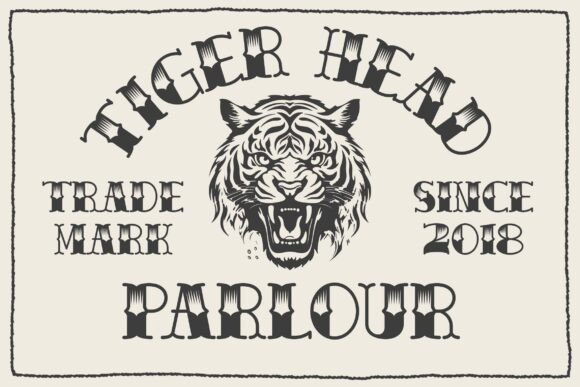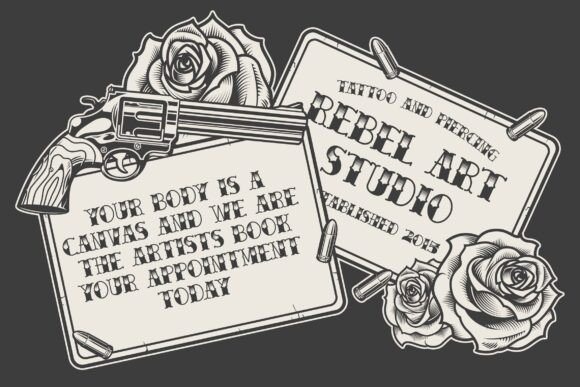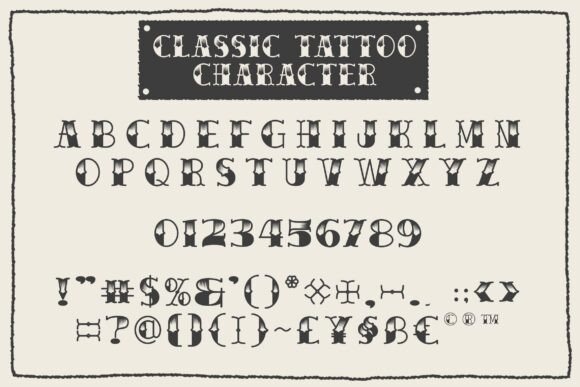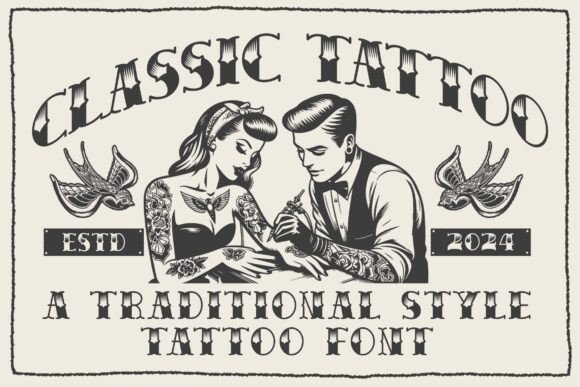
Classic Tattoo Font: Vintage Typography for Bold Logo Design
About the Classic Tattoo Font
The Classic Tattoo Font offers a perfect balance of form and function for your design needs. Classic Tattoo a traditional tattoo style font is made for any professional project branding, such as logotype, watermarks, poster, branding, promotions, product packaging, etc. Every letter has a tattoo style design.
Classic Tattoo excels in headline applications, short impactful phrases, and branding projects requiring a bold, rebellious aesthetic. Its strong character makes it ideal for posters, logos, and packaging for products targeting a mature or edgy market. Avoid using it for body text or extended reading; its ornate details hinder readability in smaller sizes or continuous paragraphs.
This font’s personality is undeniably bold and assertive, with a vintage feel. To balance this, pair it with a clean sans-serif like Montserrat for a modern contrast, or a classic serif such as Garamond for a more timeless feel. A simple script font could also work for subtle accents, depending on the project’s overall direction.
For projects aiming for a more balanced look, consider using Classic Tattoo sparingly, perhaps as a primary logo element alongside a more legible secondary font for the body text or supporting information. This approach allows you to leverage its visual impact without sacrificing readability.
Classic Tattoo Font Usage Examples
Classic Tattoo Font Example